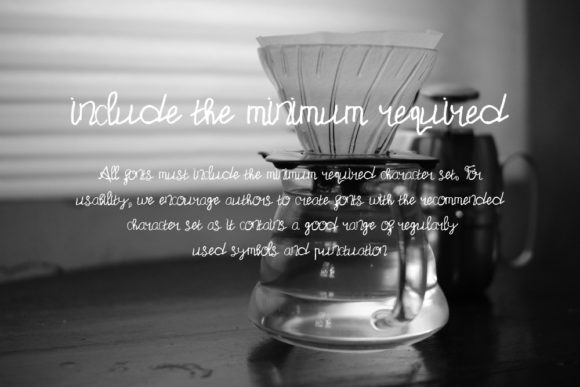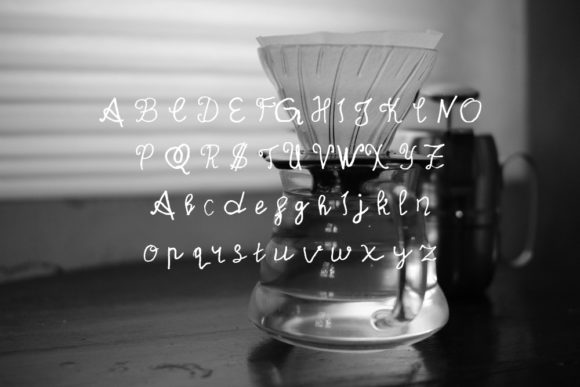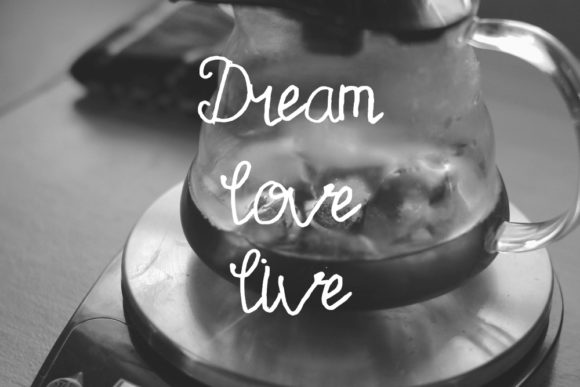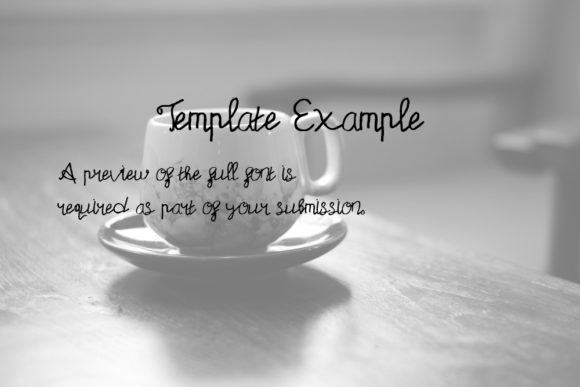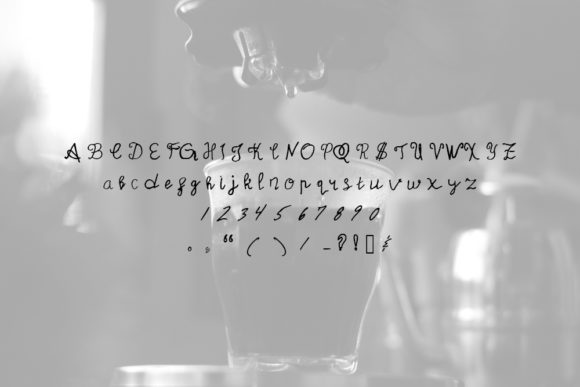
Alpha Live Arjuna Font
About Alpha Live Arjuna Font
Alpha Live Arjuna is a great handwritten font created with the help of a brush pen. It will look outstanding in any context, whether it’s being used on busy backgrounds or as a standalone headline!